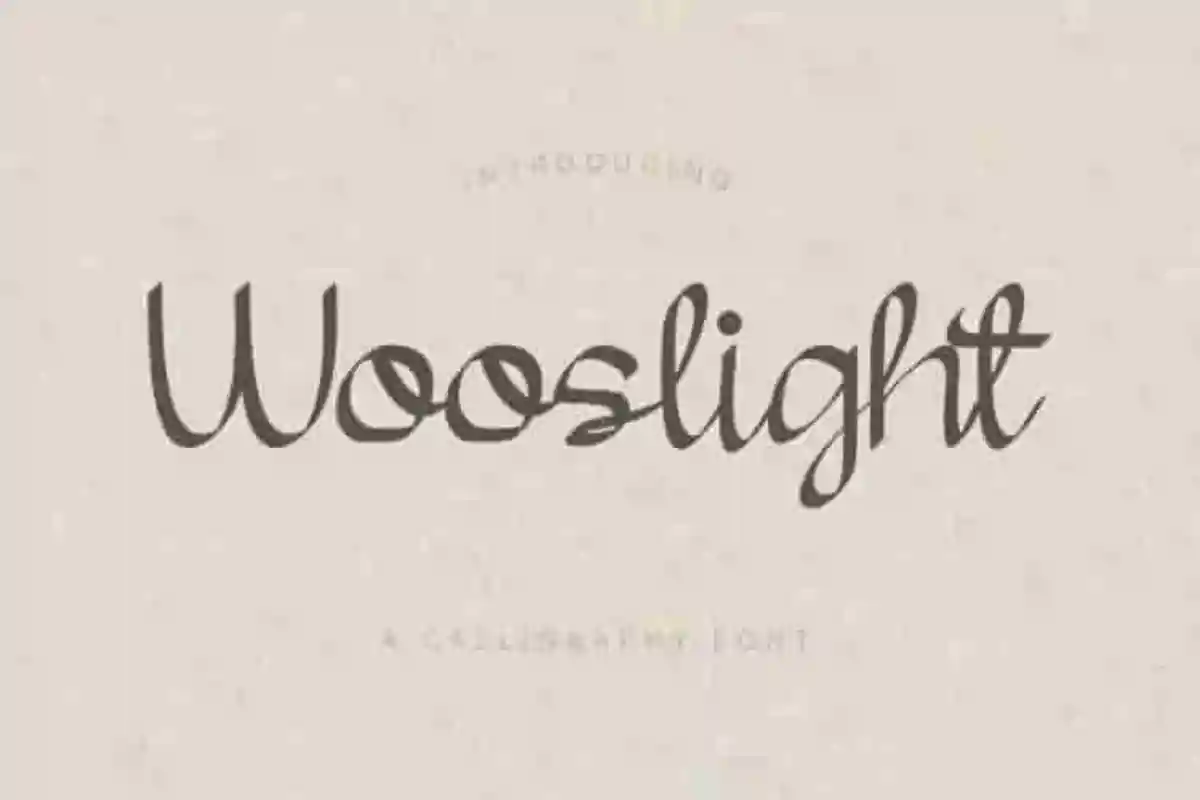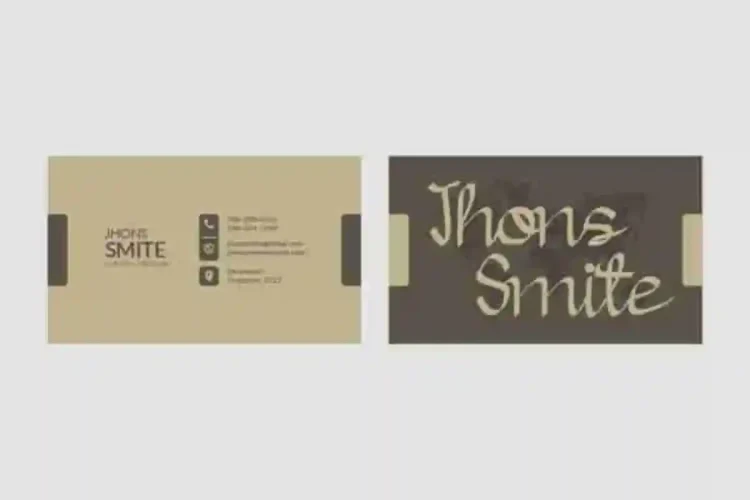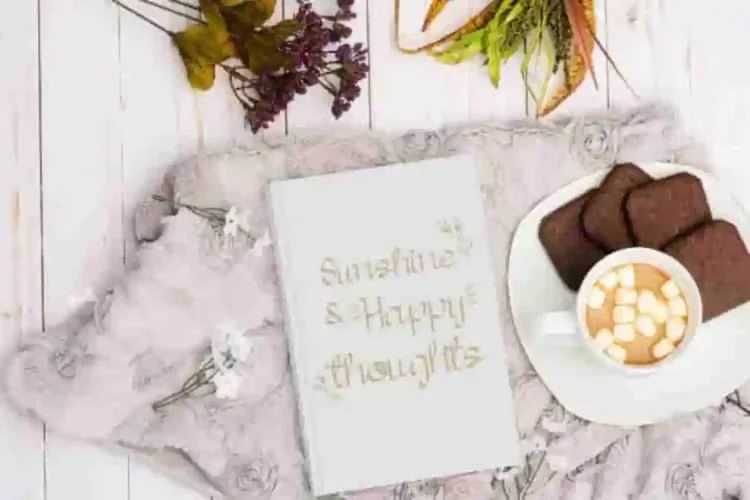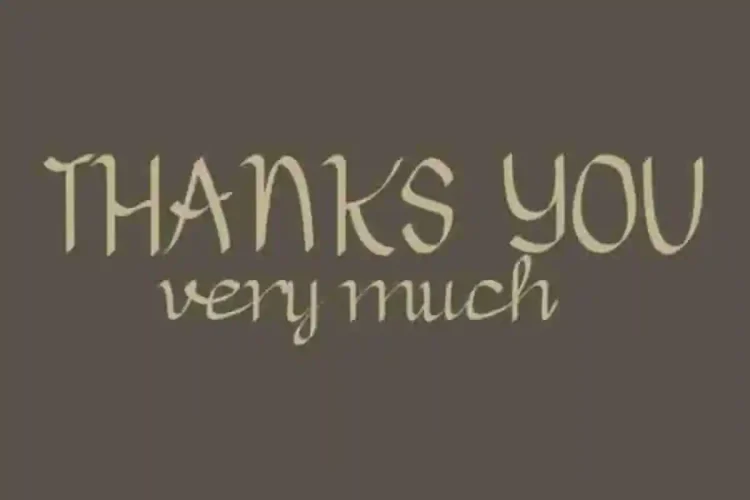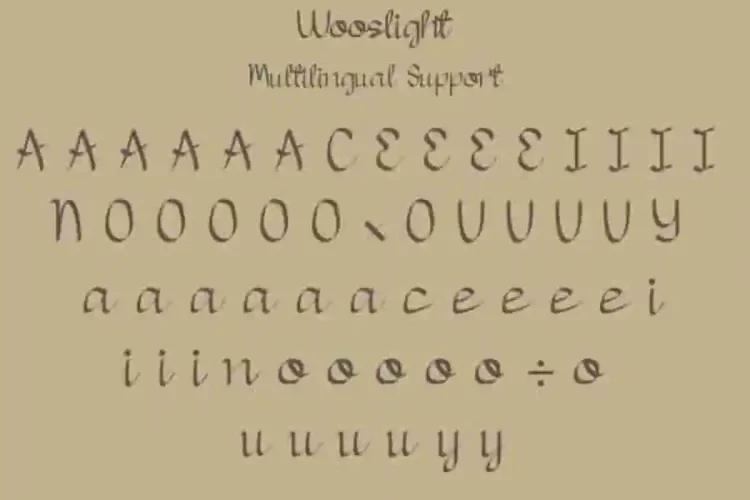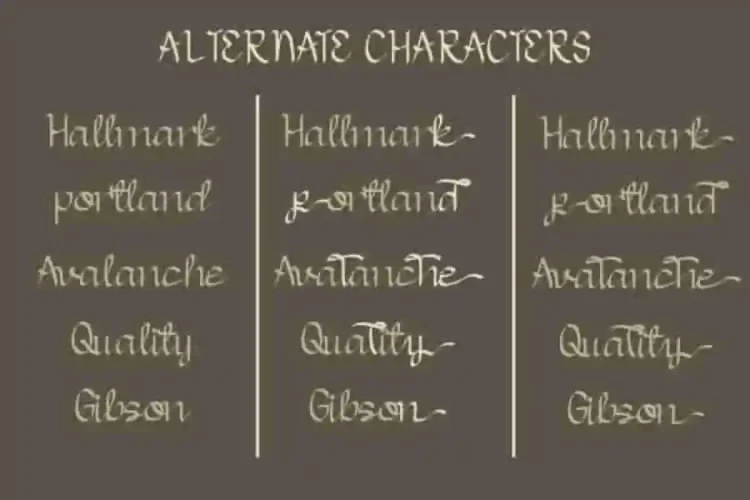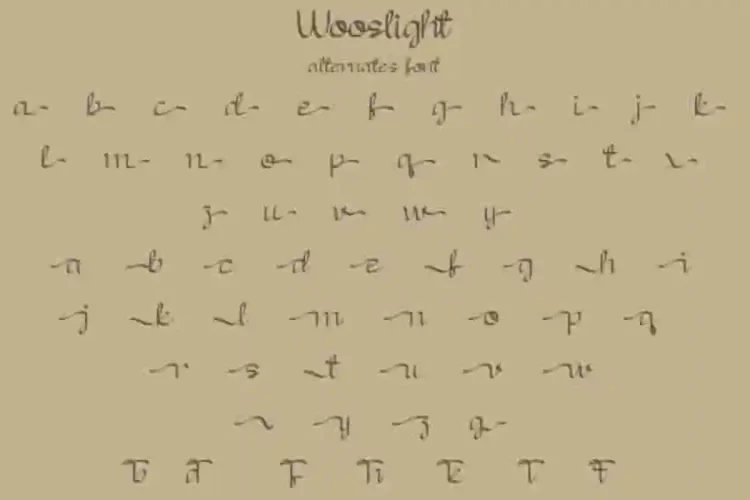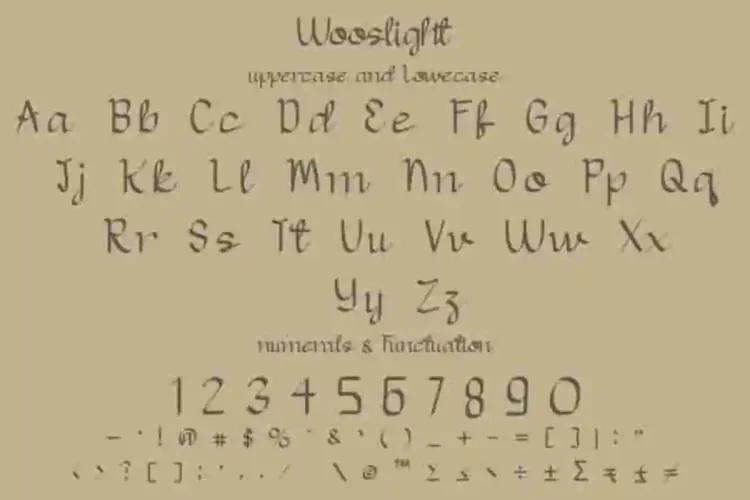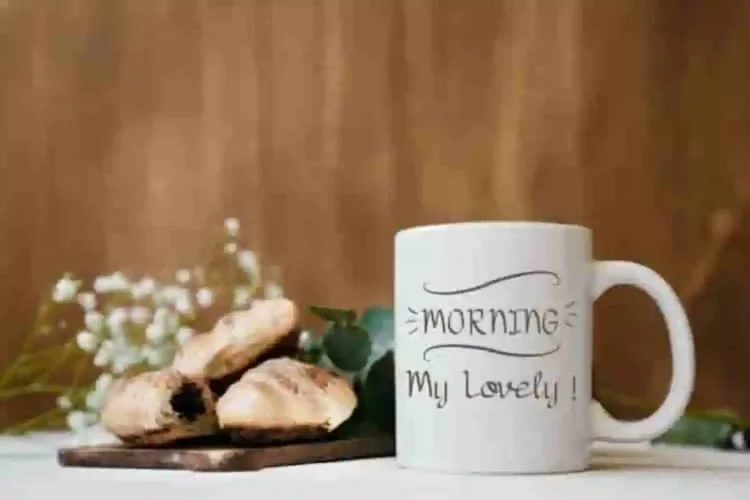
Wooslight Calligraphy Font
Please welcome : Wooslight Font
This is a handwritten calligraphy script font, made by two artists : Aghnia and Suci. Originally made in Bandung and Garut, Indonesia.
With its exclusive alternate glyphs, Wooslight lets you explore endless design possibilities, adding personal flair to logos. With your creativity, there’s no limit using with this font.